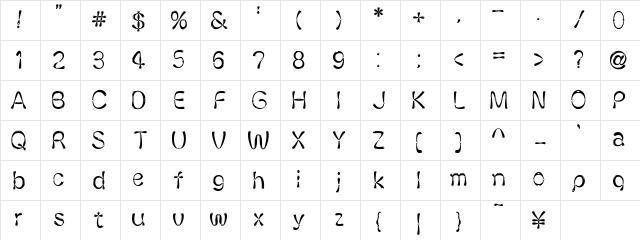
Ballon Alphabet Regular Free Font
Ballon Alphabet Regular
Ballon Alphabet is a composed and adaptable typeface that performs quietly and consistently across a wide range of design contexts.